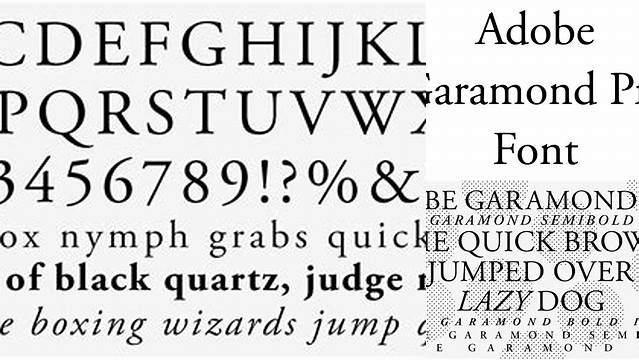
Adobe Garamond Pro: A Deep Dive into the Classic Typeface
Adobe Garamond Pro isn't just any font; it's a piece of design history, steeped in tradition and known for its readability and grace. It's a digital version of the original Garamond typeface, which was created by Claude Garamond, a French punch-cutter of the 16th century. This font family is characterized by its refined serifs, balanced proportions, and overall elegance, making it a favorite for both body text and headlines. The "Pro" in the name signifies an expanded character set and advanced OpenType features, providing designers with greater flexibility and control. This includes support for multiple languages, a variety of ligatures, and different numeral styles. This versatility allows designers to create a more polished and professional look across various design projects. Understanding the historical significance of Adobe Garamond Pro can enhance your appreciation for its design. The original Garamond fonts were known for their beauty and clarity, and the modern Adobe Garamond Pro maintains these qualities while incorporating improvements for modern usage. The attention to detail in its design makes it a popular choice for projects that require a classic, sophisticated aesthetic. Choosing Adobe Garamond Pro is more than just selecting a font; it's a nod to typographic history and a commitment to quality. The font's timeless appeal means it will remain a viable choice for years to come, providing you with a design tool that embodies both tradition and modern utility. Whether you're working on a book, a website, or a print ad, Adobe Garamond Pro will bring a touch of class and sophistication to your work. The legacy of Garamond continues to thrive, and using Adobe Garamond Pro allows you to carry this legacy forward in your creative endeavors. Ultimately, using this font is about creating visually appealing and highly readable designs. The design choices should support readability. This font excels in this regard, making it an ideal choice for any project where clarity and elegance are paramount.
The Legacy of Garamond: A Brief History
The story of Adobe Garamond Pro starts with Claude Garamond himself. Born in the 1480s, Garamond was a pioneer in the art of type design. His fonts were renowned for their beauty, legibility, and their impact on the printing world. His work set the standard for typography. His designs were so influential that they were used by printers for centuries, which helped standardize typography. The original Garamond fonts were used in various printed materials. The use of Adobe Garamond Pro is a connection to this rich history. The font's design reflects the principles of the Renaissance, where the goal was to create a harmonious and balanced aesthetic. Garamond's fonts were considered works of art, setting a new standard for typeface design. The details in his designs make them timeless, and the fonts are still in use today. Understanding this history can add depth to your appreciation of Adobe Garamond Pro. The typeface embodies the elegance and precision that defined the printing of the Renaissance, offering a timeless appeal that continues to charm designers. The choice of Adobe Garamond Pro is also a nod to the heritage of typography. It's a way to engage with and honor the past through modern design. The font’s enduring popularity is a testament to the enduring qualities of Garamond’s work. The evolution of type design has brought about many innovations, but Adobe Garamond Pro retains the qualities that have made it so popular, showcasing the best aspects of traditional and modern typography. Choosing Adobe Garamond Pro allows designers to bridge the gap between the past and the present, bringing a classic elegance to contemporary design.
Key Features and Characteristics of Adobe Garamond Pro
Adobe Garamond Pro distinguishes itself through a set of key features. Its serifs, for example, are refined and subtly curved, giving the font a natural, flowing appearance that enhances readability. These serifs add an element of elegance, especially at smaller sizes. This font's proportions are carefully balanced. Each letter is designed to work in harmony with the others, creating a unified visual experience. This balance is a key characteristic of the original Garamond fonts. The "Pro" version of the font has OpenType features. This allows for greater flexibility in the use of the font. These features also support several languages and numeral styles. This expands the usability of Adobe Garamond Pro across various platforms. The font is designed to look great in both text and headlines. Its versatility has made it a favorite among designers. It also has excellent legibility, even at small sizes. This characteristic is very important in all design projects. In addition to these features, Adobe Garamond Pro offers various weights and styles, so you have many options. These design choices ensure it can be used in a wide range of projects. The use of ligatures is a notable characteristic. These special characters combine two or more letters into one glyph. This makes the text look more refined. The Adobe Garamond Pro font is also renowned for its classic and timeless aesthetic. This ensures that the font remains a valuable asset for any designer. The design choices create a polished and professional look. This helps set your work apart. Choosing Adobe Garamond Pro provides the best qualities of traditional design with modern versatility.